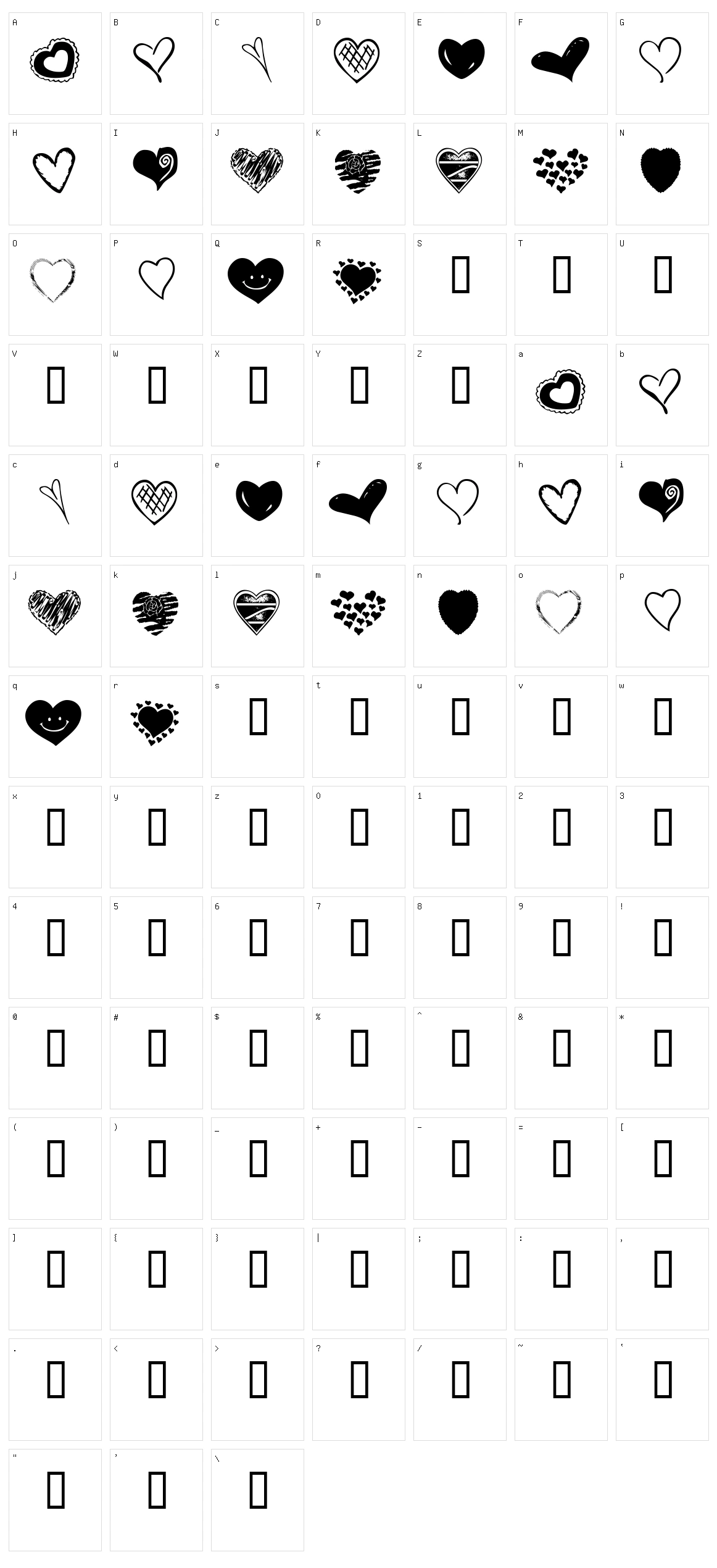
The free font KR Heartalicious is carefully designed by Kat's Fun Fonts, showcasing a thoughtful balance of creativity and usability and falls under the Valentine font style. When you download the ZIP file, it contains only 17.03 KB of font files, making it lightweight and quick to download. Please review the license details below to understand permitted usage and distribution rights. If license information is not available, we recommend using this font for personal projects only or contacting the author directly for commercial usage permissions.